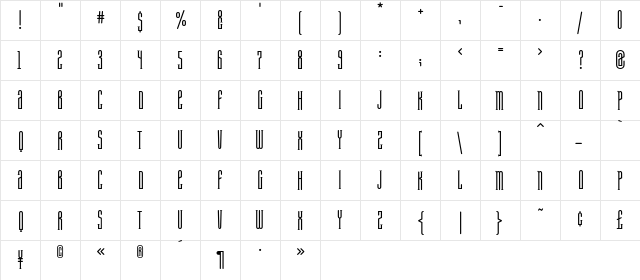
Ambu Regular
Design Context for Ambu Typeface
Ambu offers clean, dependable letterforms without strong stylistic allegiance, making it a practical choice for designers who need flexibility.